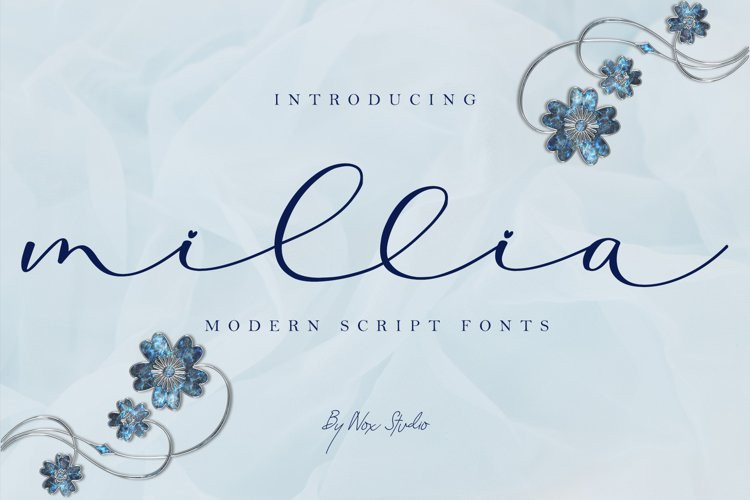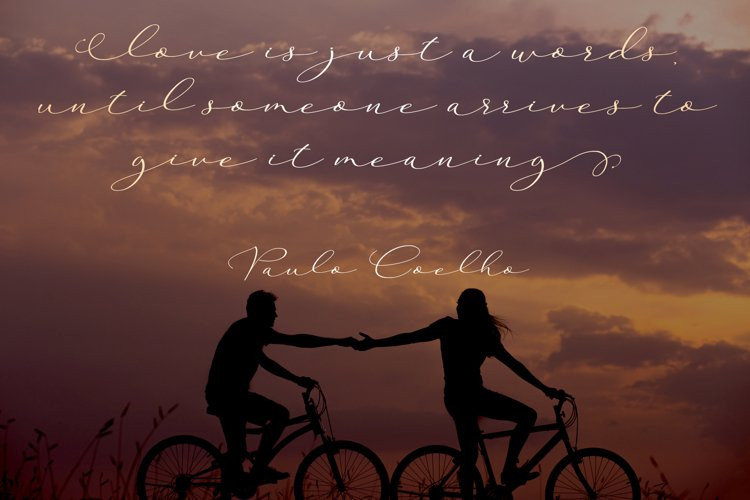
Millia Font
Millia FontMillia is a dazzling script font. This font is neatly crafted and highly detailed. Whatever the topic, this font will be a wonderful asset to your font library, as it has the potential to enhance any creation.